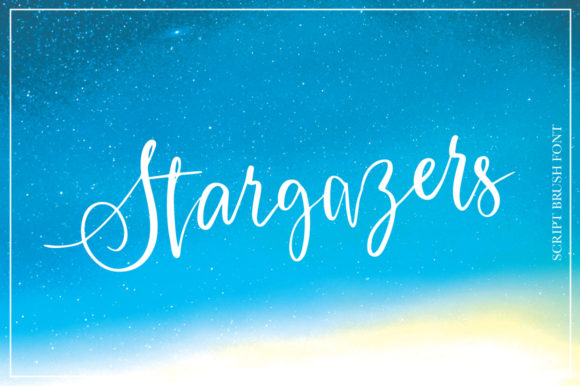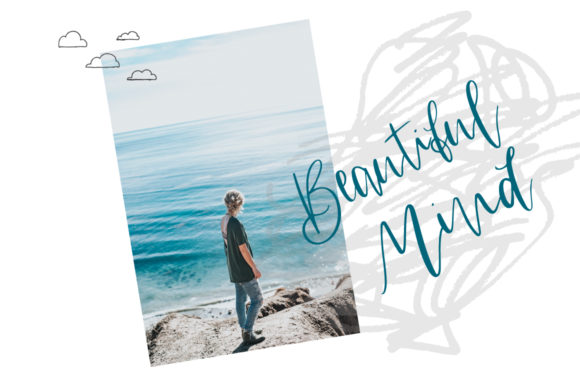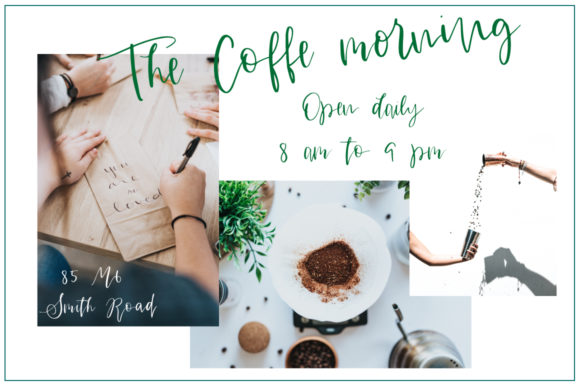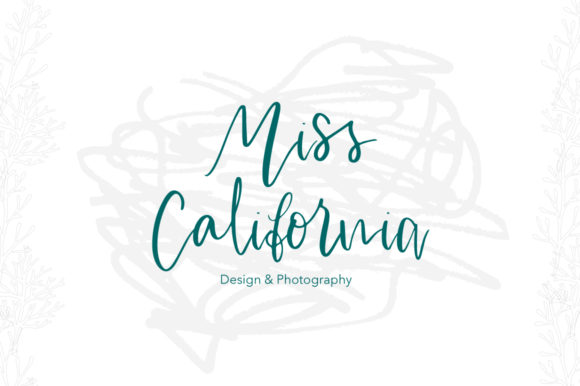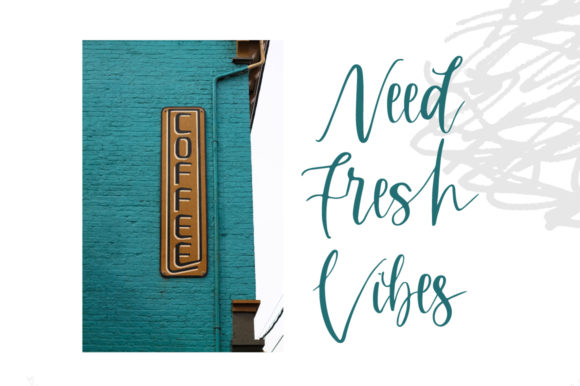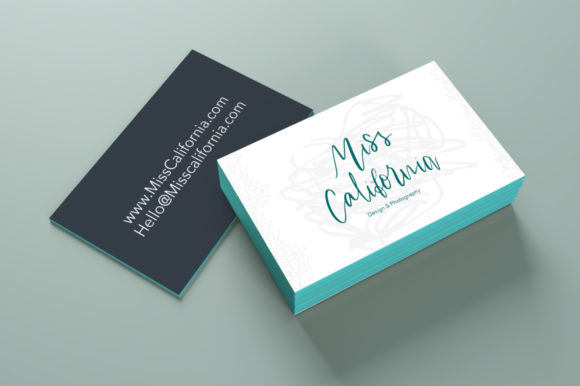
Stargazers Font
About Stargazers Font
The Stargazers is an elegant handwritten script font. It has a good readability and will give your design a feminine touch.
It’s perfect for wedding invitations, blogs, logos, book covers, and much more!